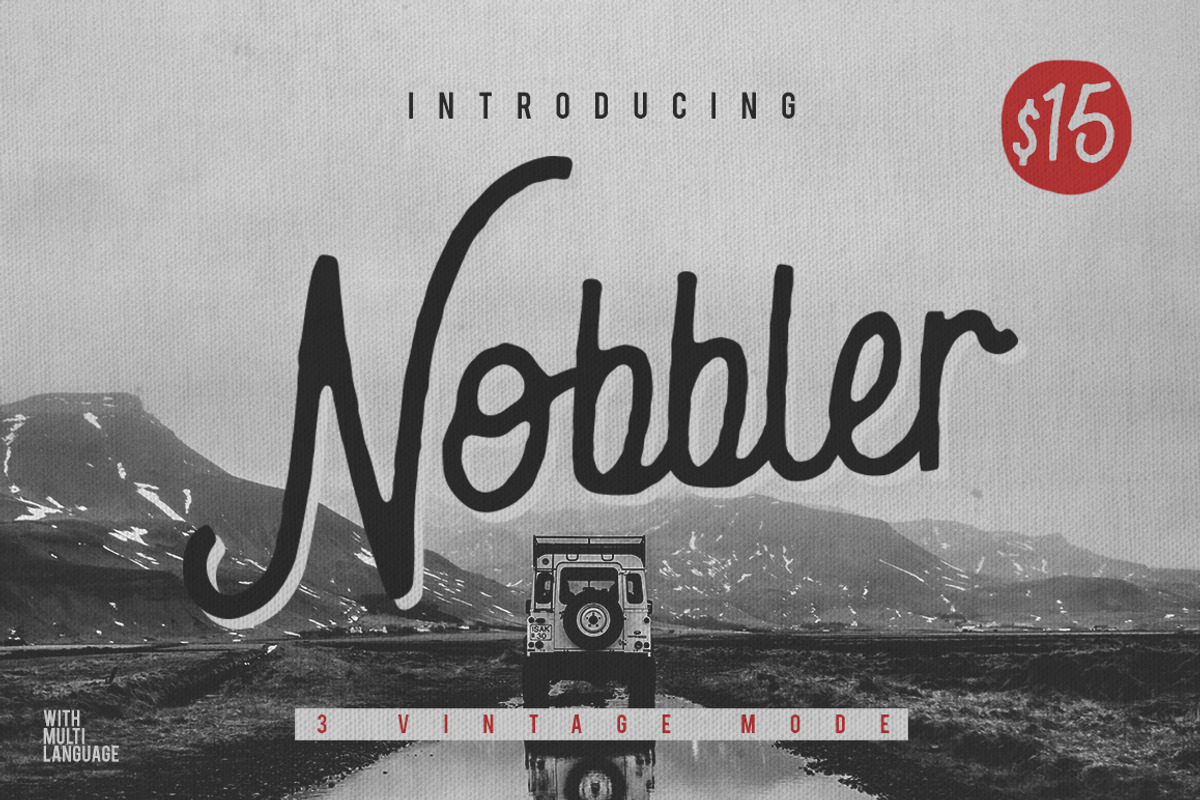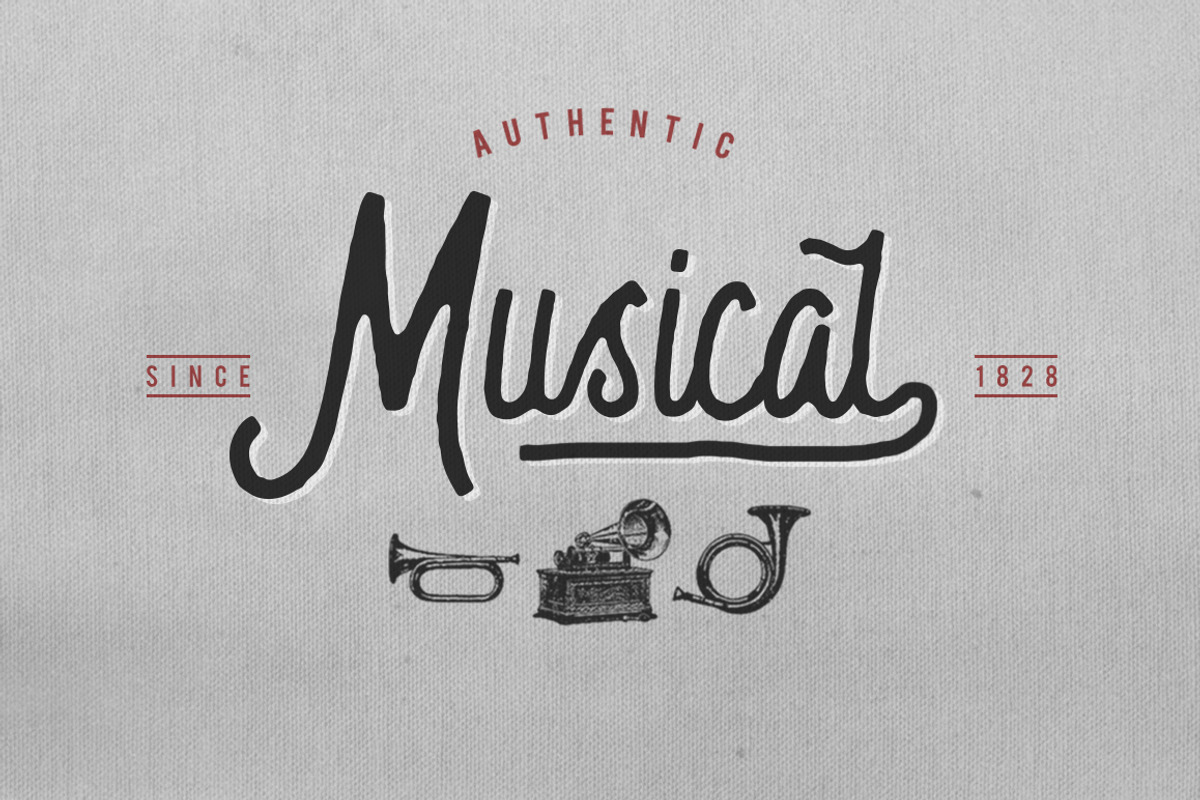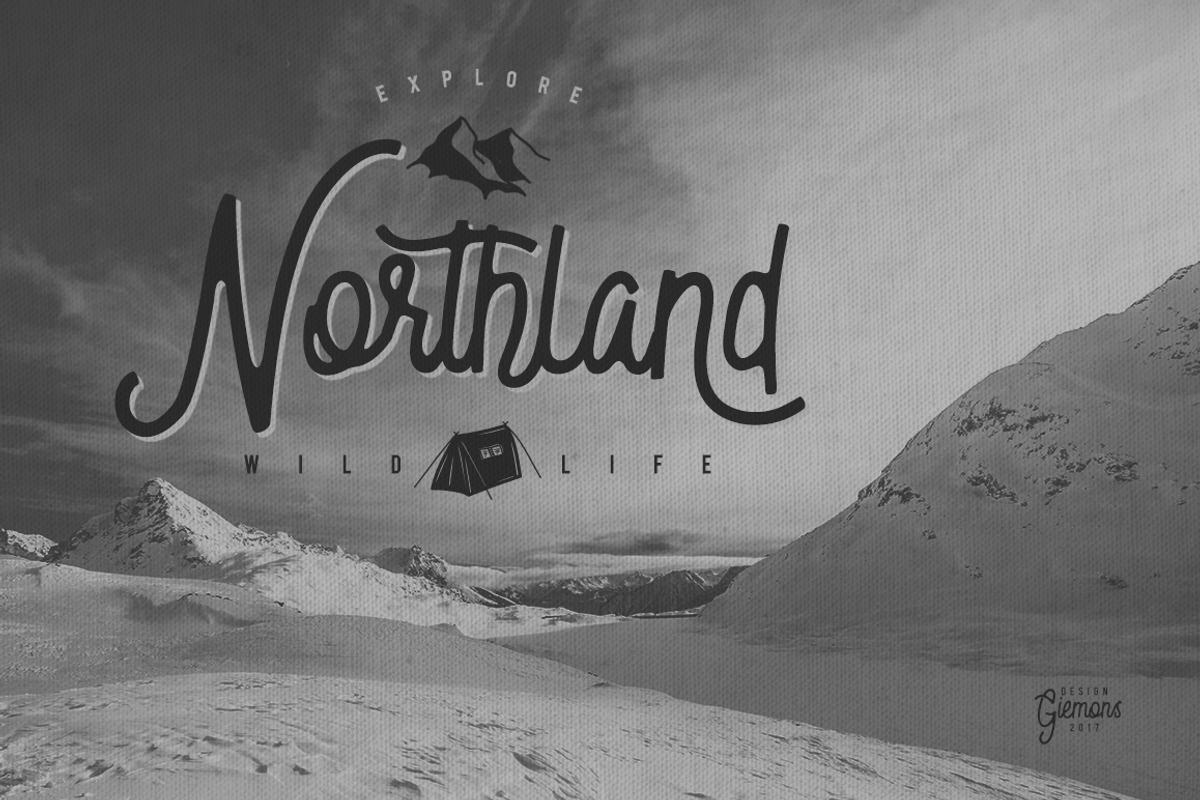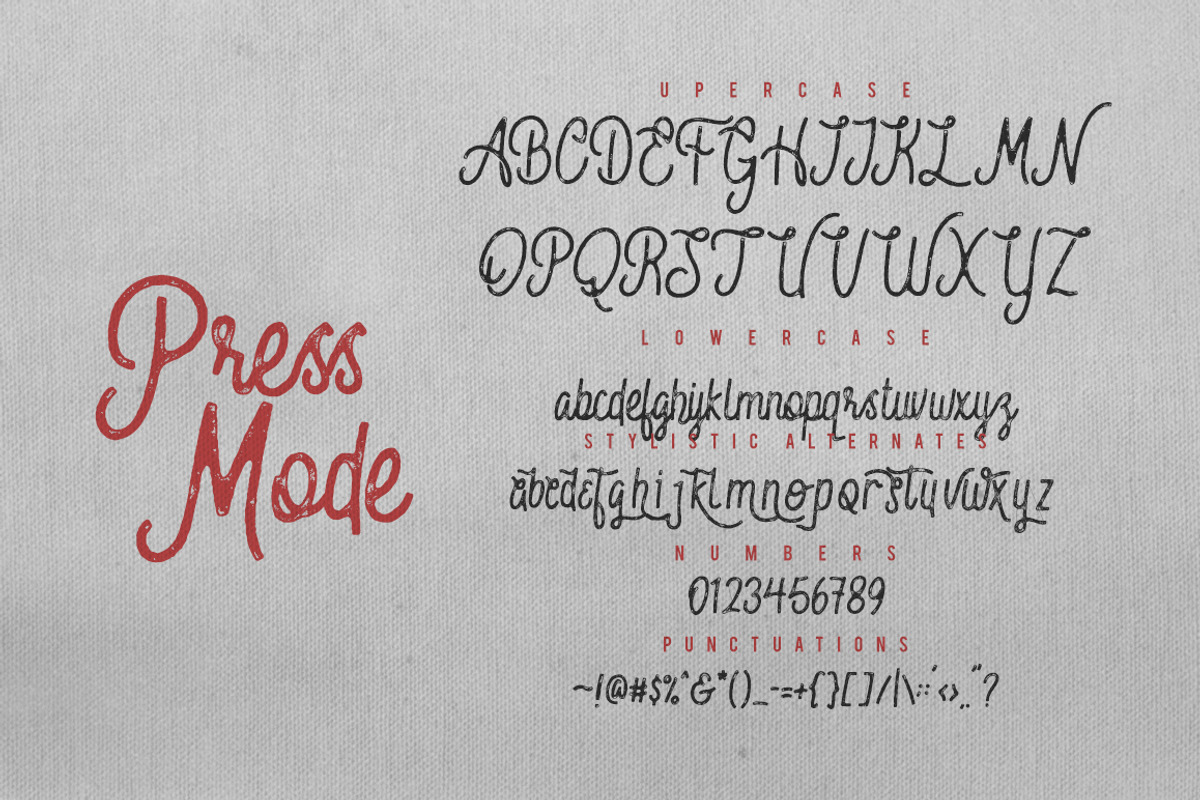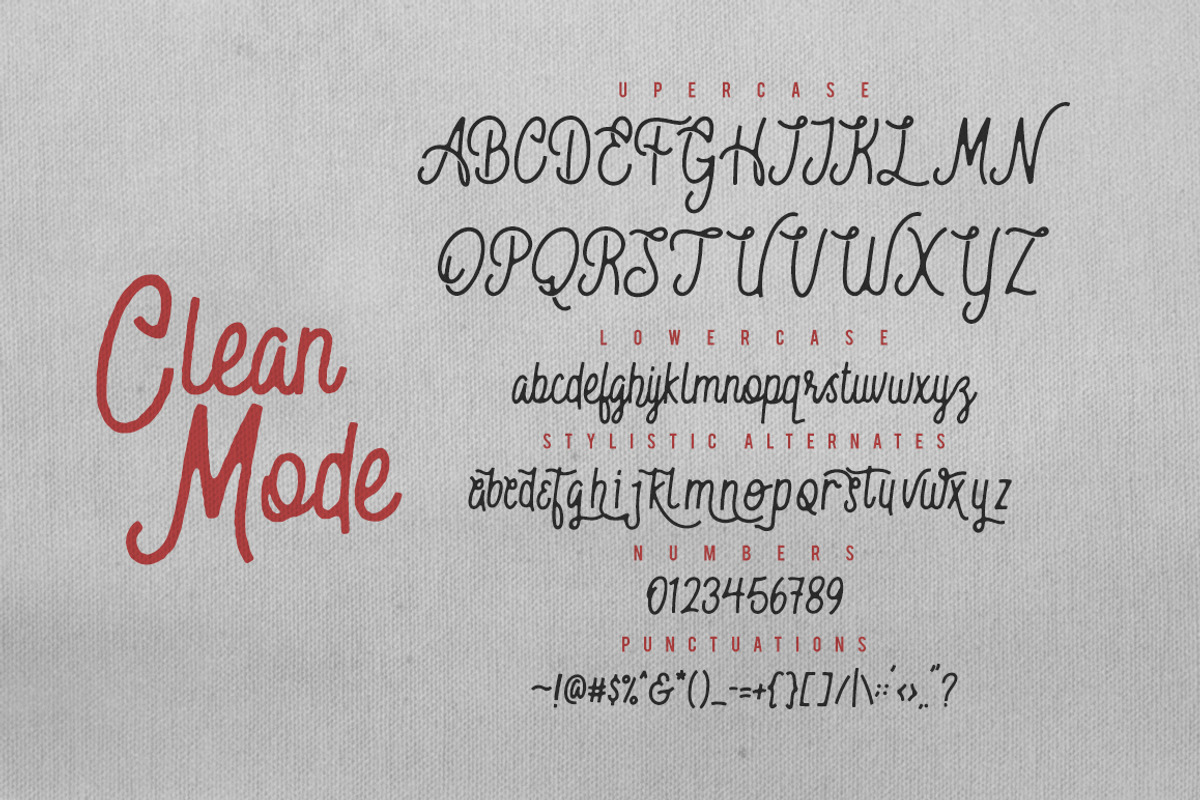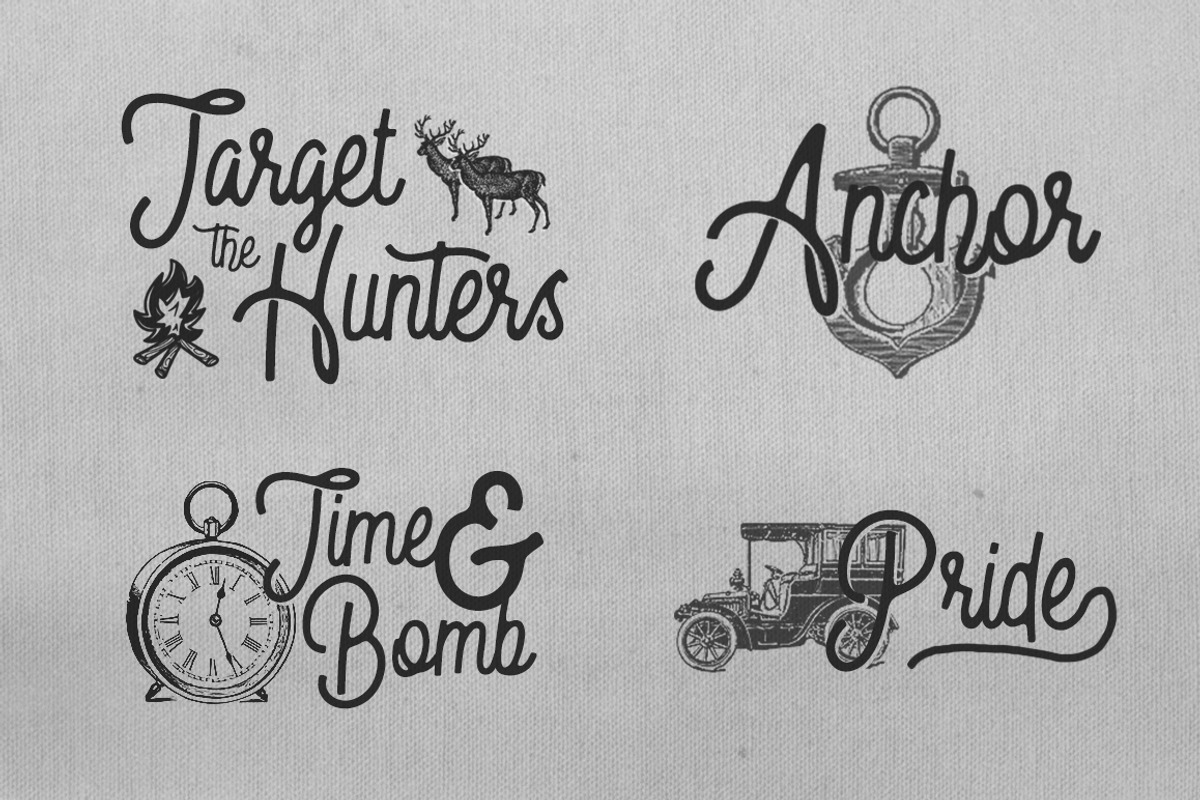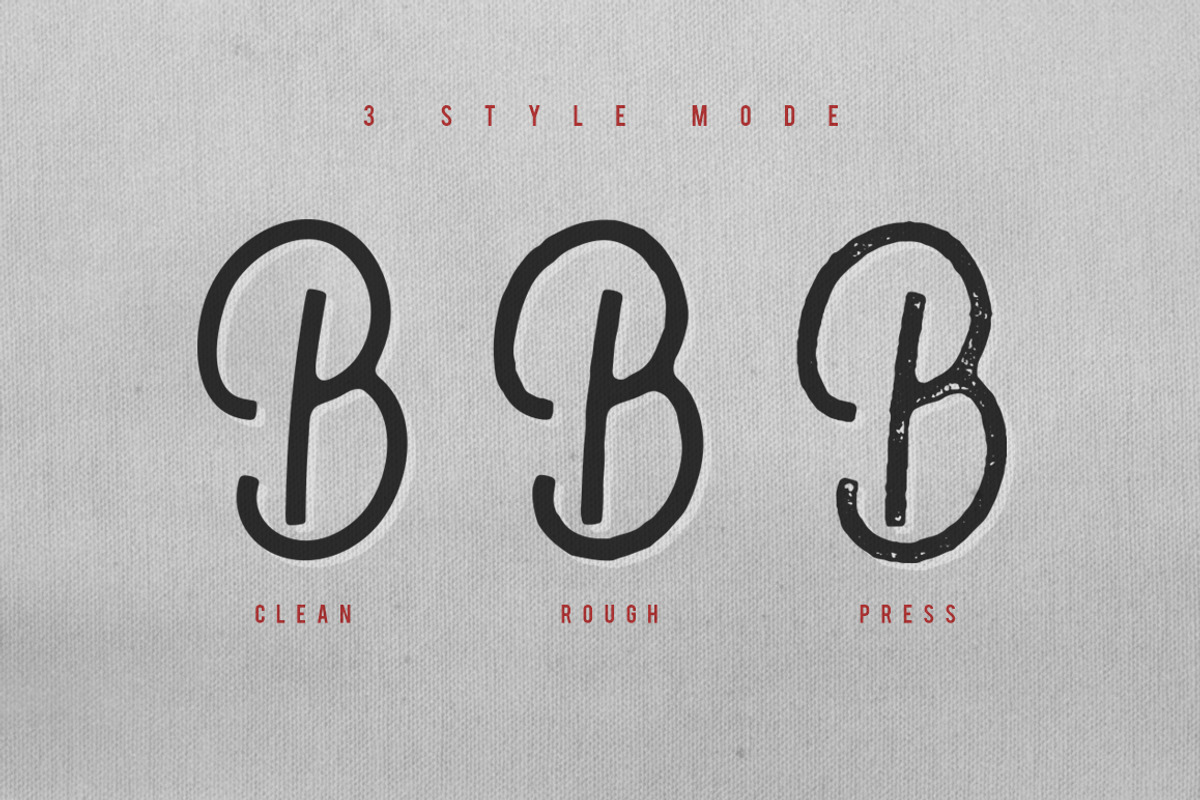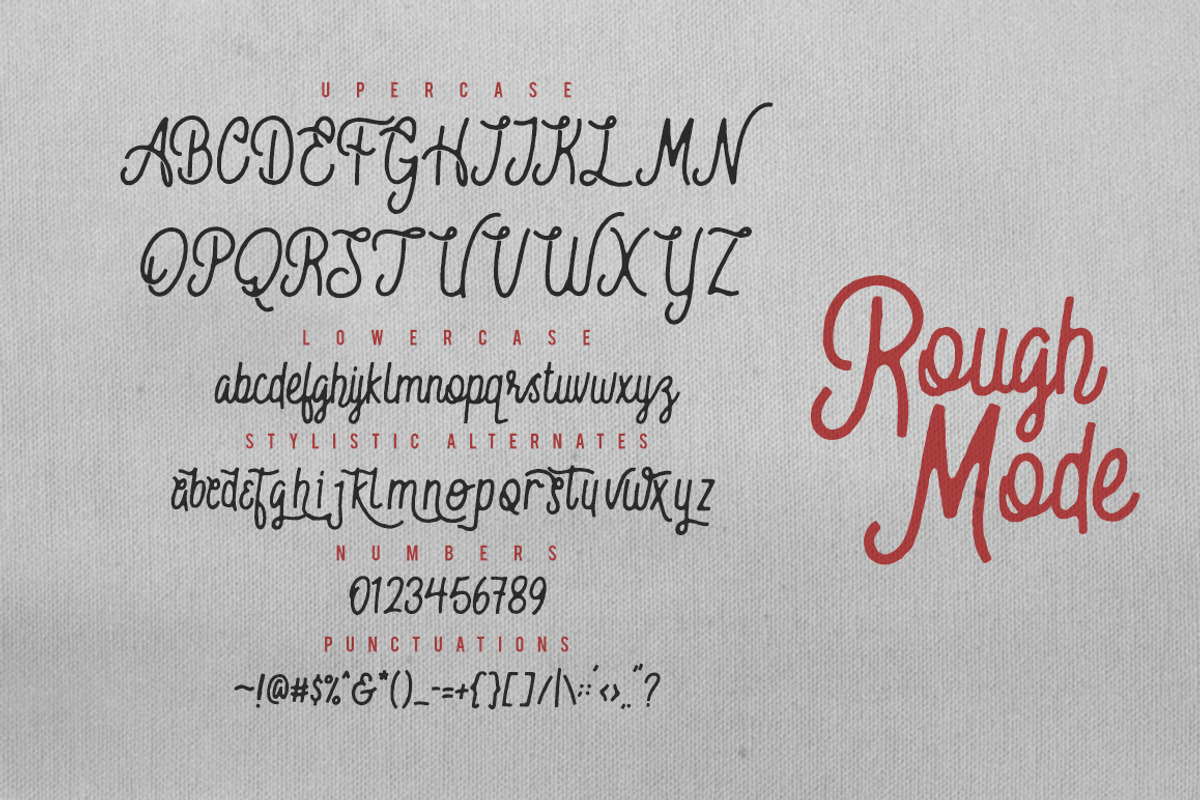
Nobbler Typeface
Nobbler Typeface by giemons™ is a font selected for branding, posters, packaging, typography.
- Nobbler Regular
- Nobbler Press
- Nobbler Rough
Nobbler Typeface by giemons™ fits naturally into Branding, posters, packaging, typography.